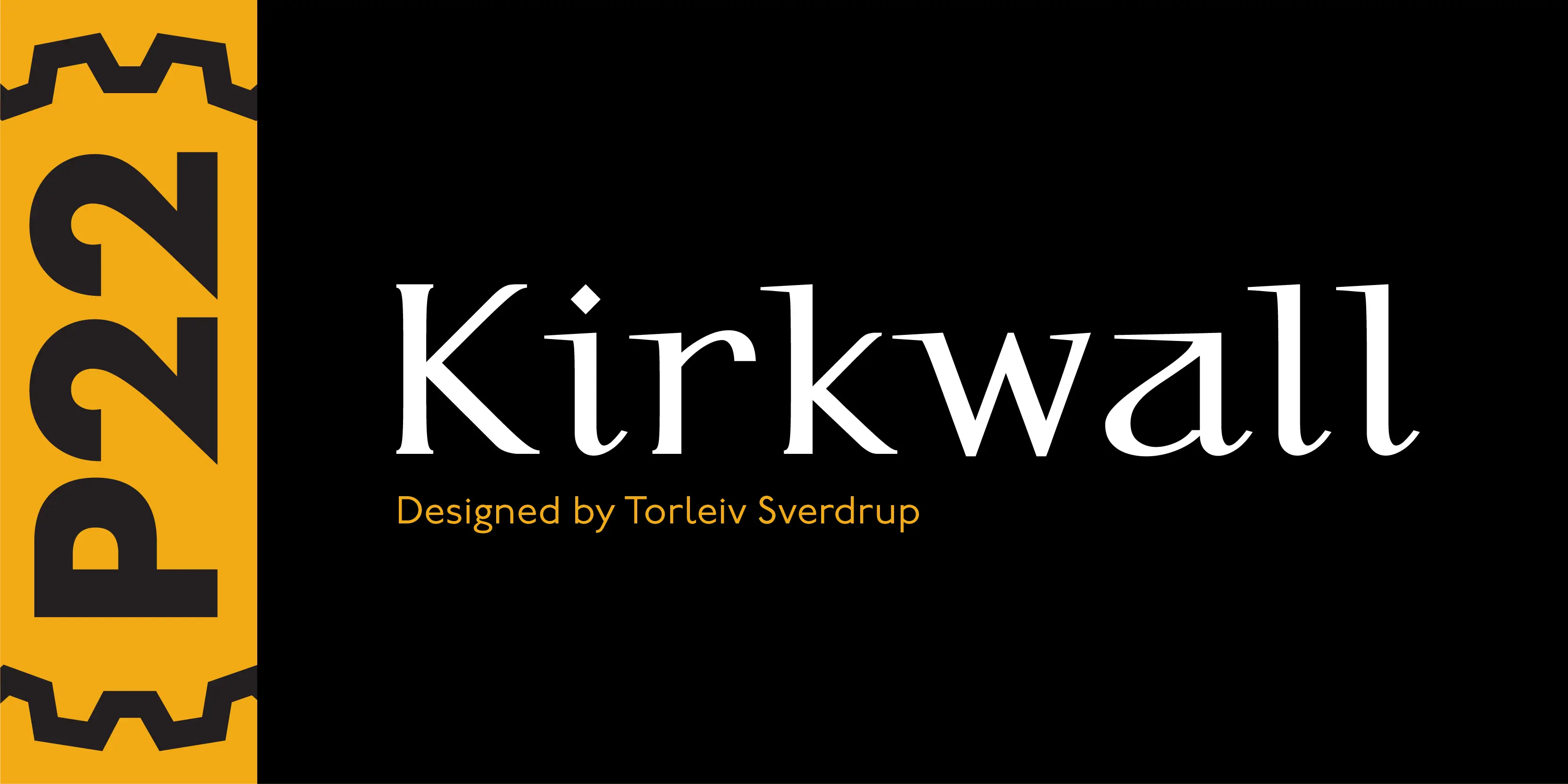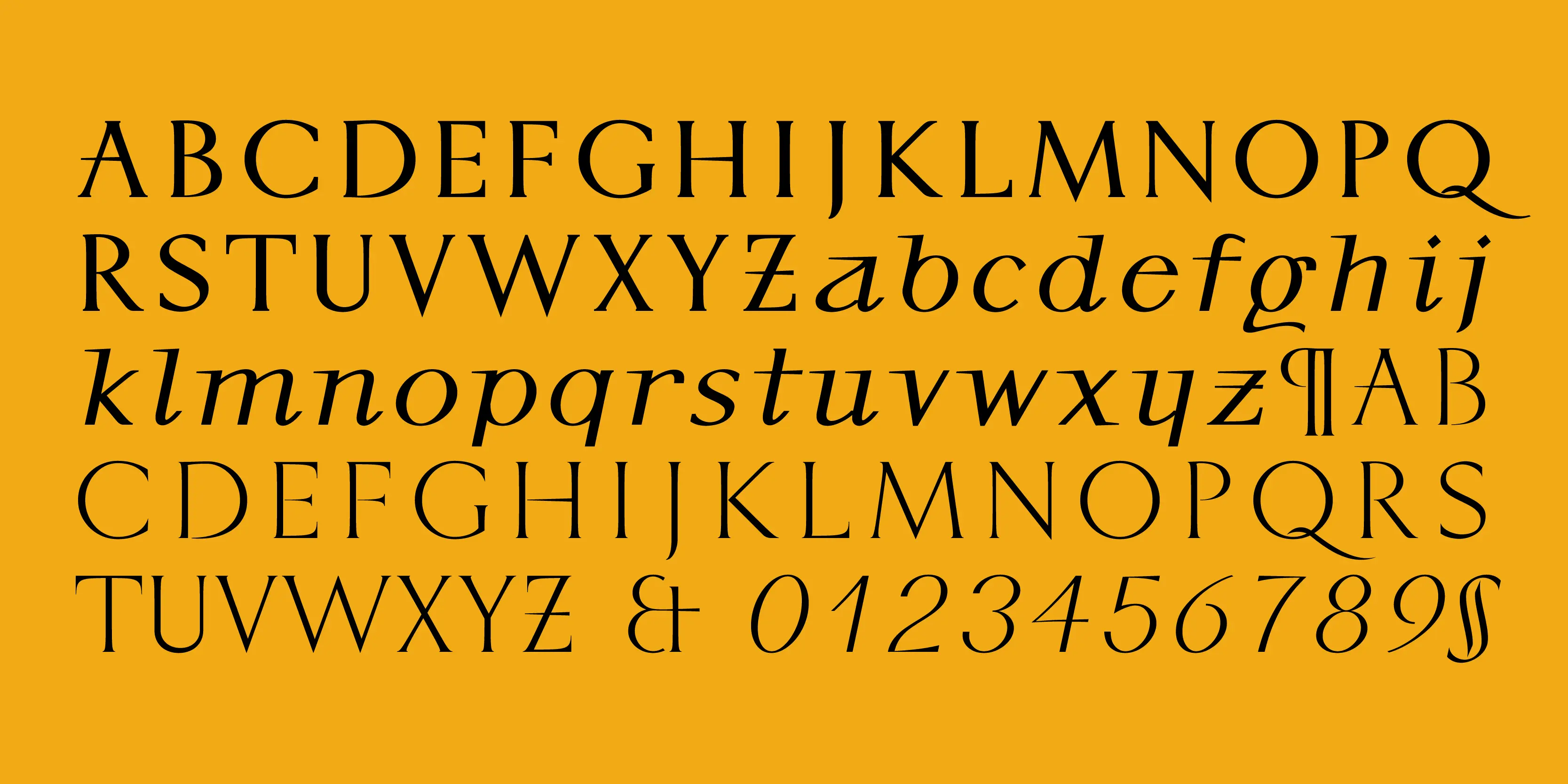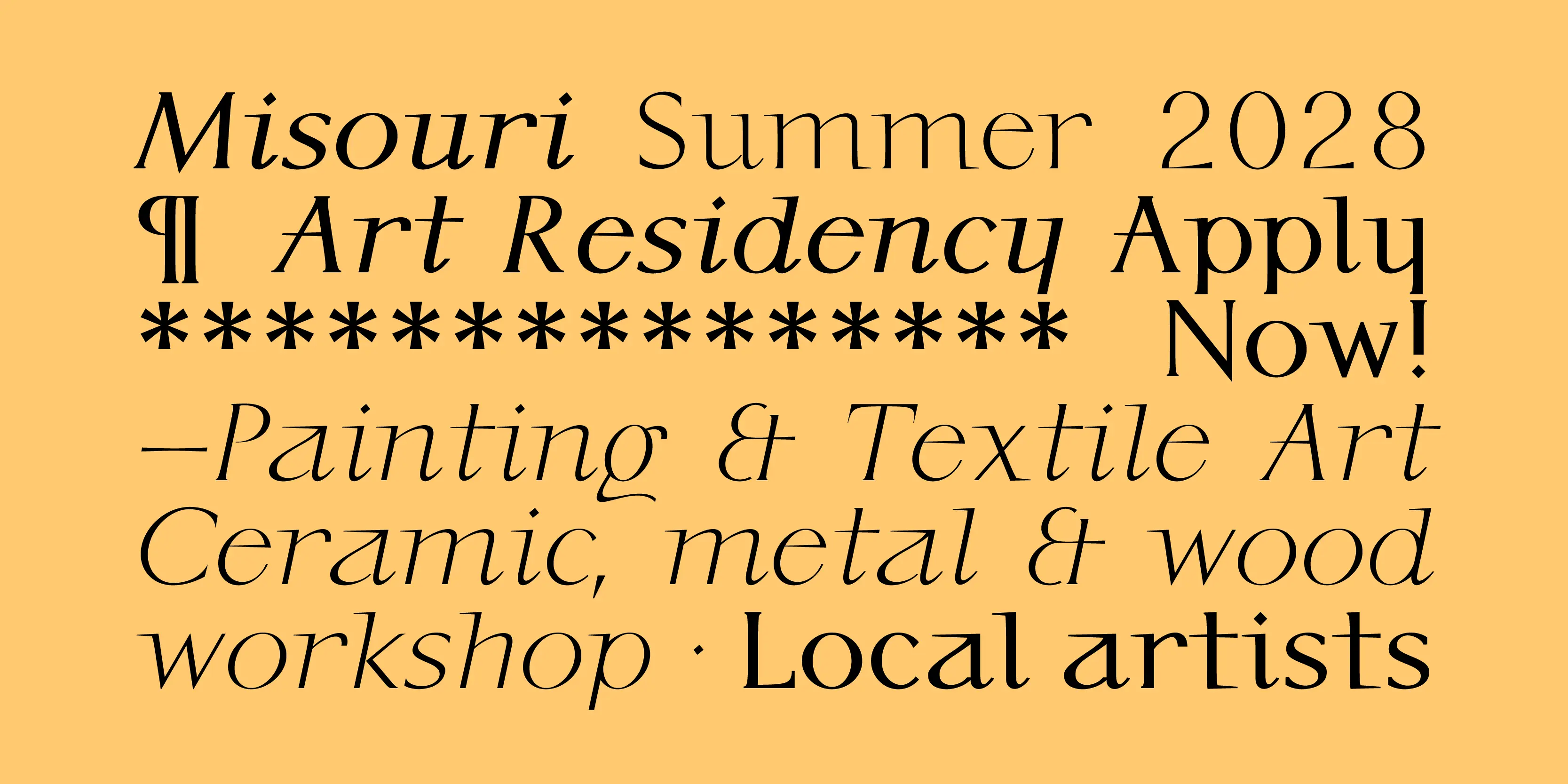
Kirkwall
P22 Kirkwall is an unusual and elegant design. The upper case letters have a slightly curved stem that ends in a small serif and wedge crossbars. The lower case letters have a fluid and easy design with end-hooks and long leading serifs. Kirkwall Trim and Bold Trim styles contain an alternate set of lower case characters without the long leading serifs and end-hooks. P22 Kirkwall is appealing for display work and appropriate for short texts and headlines.
“The type design is inspired by my meeting with the people of Orkney Island and their culture, and it’s my tribute to the St. Magnus Cathedral in Kirkwall.”